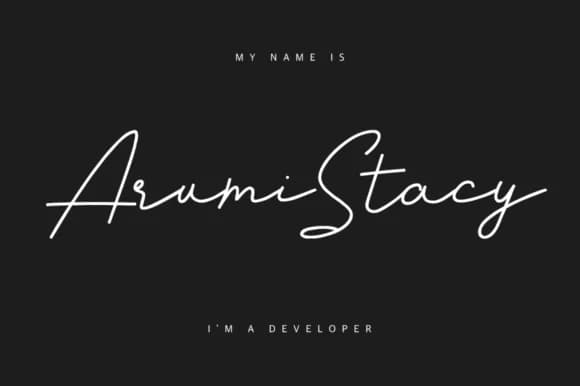
1 / 6About Ladytron Script Font
Ladytron Script Font by maulanacreative is a flowing handwritten typeface that brings genuine warmth to sophisticated design projects. With its natural pen-stroke texture and graceful letterforms, this script works beautifully across both digital and print applications, making it a versatile choice for designers seeking that coveted handcrafted authenticity without sacrificing legibility or visual polish. The font truly shines for wedding invitation suites, where its elegant curves complement luxury stationery pieces, and for upscale restaurant menu design that requires both beauty and readability. Personal brand development benefits from Ladytron's distinctive character, it works wonderfully for signature-style logos and personal stationery that establishes a memorable first impression. Cosmetics and fragrance packaging also pair exceptionally well with this typeface, as does luxury greeting card design where the script's fluidity becomes a visual asset that captures attention and conveys premium quality. Beyond these core applications, Ladytron brings personality to lifestyle blog headers, social media graphics for creative entrepreneurs, and boutique e-commerce brand identities that demand distinctive character. Whether you're designing high-end stationery, crafting personalized branding materials, or creating editorial content with visual sophistication, this script font delivers the handwritten warmth that contemporary design projects deserve. Discover Ladytron Script Font on Creative Fabrica and bring authentic handwritten elegance to your designs.
Browse all βWhat pairs well with Ladytron Script Font?
Ladytron Script Font is a script font that shines as a display or heading face. Pair it with a clean sans-serif or serif font for body text β the contrast creates a clear hierarchy while the two styles stay balanced and easy to read.